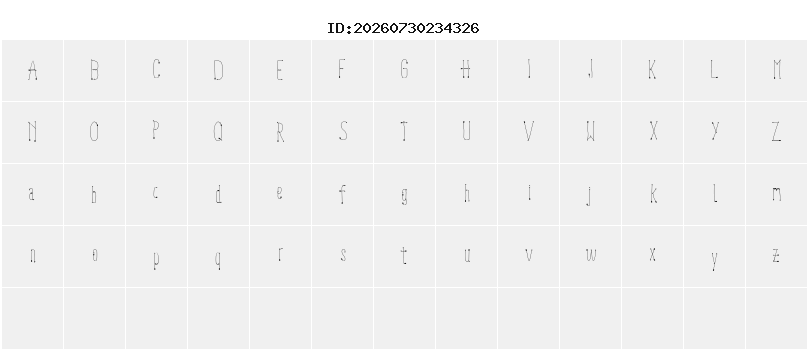
LookUp Preview
• Font Name: LookUp
• Font ID: FilizSahin: LookUp: 2013
• Full Font Name: LookUp
• PostScript Name: LookUp
• Character Count: 58
• Designer: Filiz Sahin
• Manufacturer: Filiz Sahin
About LookUp.ttf
LookUp.ttf is a modern, elegant sans-serif font designed for ultimate readability and visual harmony. Perfect for branding, headlines, web design, and print materials.